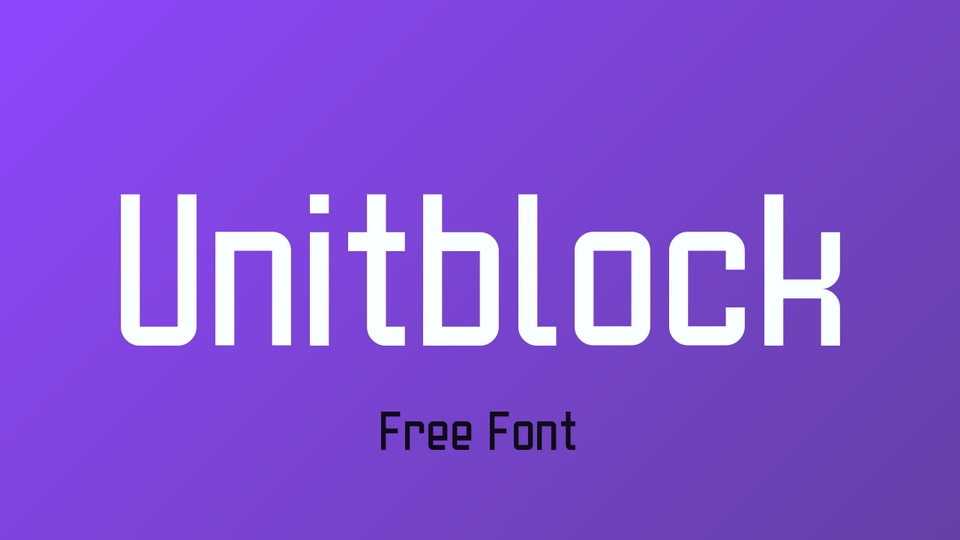
Download Unitblock font, a sans serif typeface that merges the structured precision of geometric design with bold, blocky simplicity. Unitblock font offers a look that’s both sleek and robust, making it perfect for a variety of applications, from tech-forward websites and app interfaces to bold, impactful headlines on posters and branding materials.